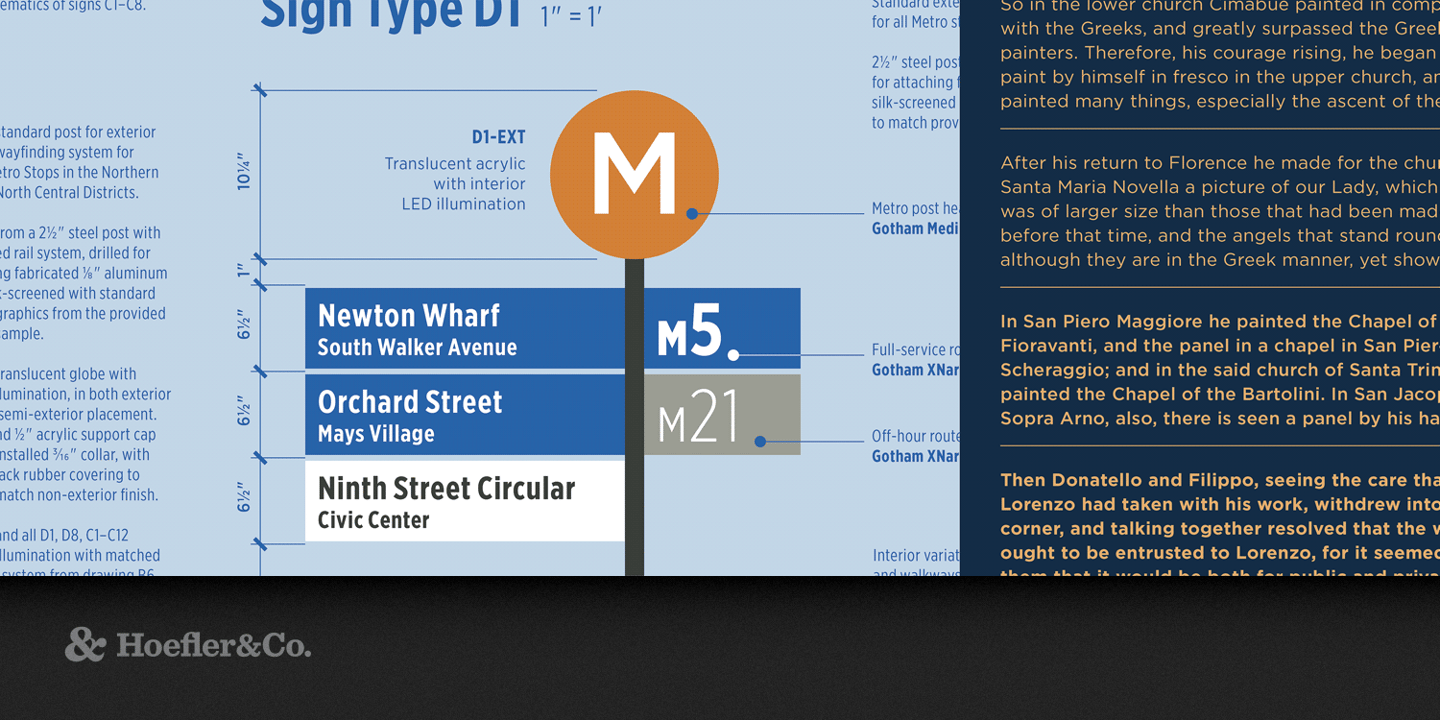
Gotham Condensed vs BenchNine
BenchNine is a popular open-source alternative to Gotham Condensed's geometric design. At 68% similarity, BenchNine delivers a modern, industrial aesthetic. Compare which works better for branding and advertising projects.
Design overlap:17%
Gotham Condensed
BenchNine
Gotham Condensed
BenchNine
| Feature | Gotham Condensed | BenchNine |
| Weights | Multiple | 300, 400, 700 |
| Italics | Yes | No |
Consider: Gotham Condensed
- Shares Gotham Condensed's modern character
- Delivers a modern, industrial, editorial aesthetic
- Versatile enough to replace 5+ premium fonts
Recommended: BenchNine
- Designed specifically for branding and advertising
Gotham Condensed